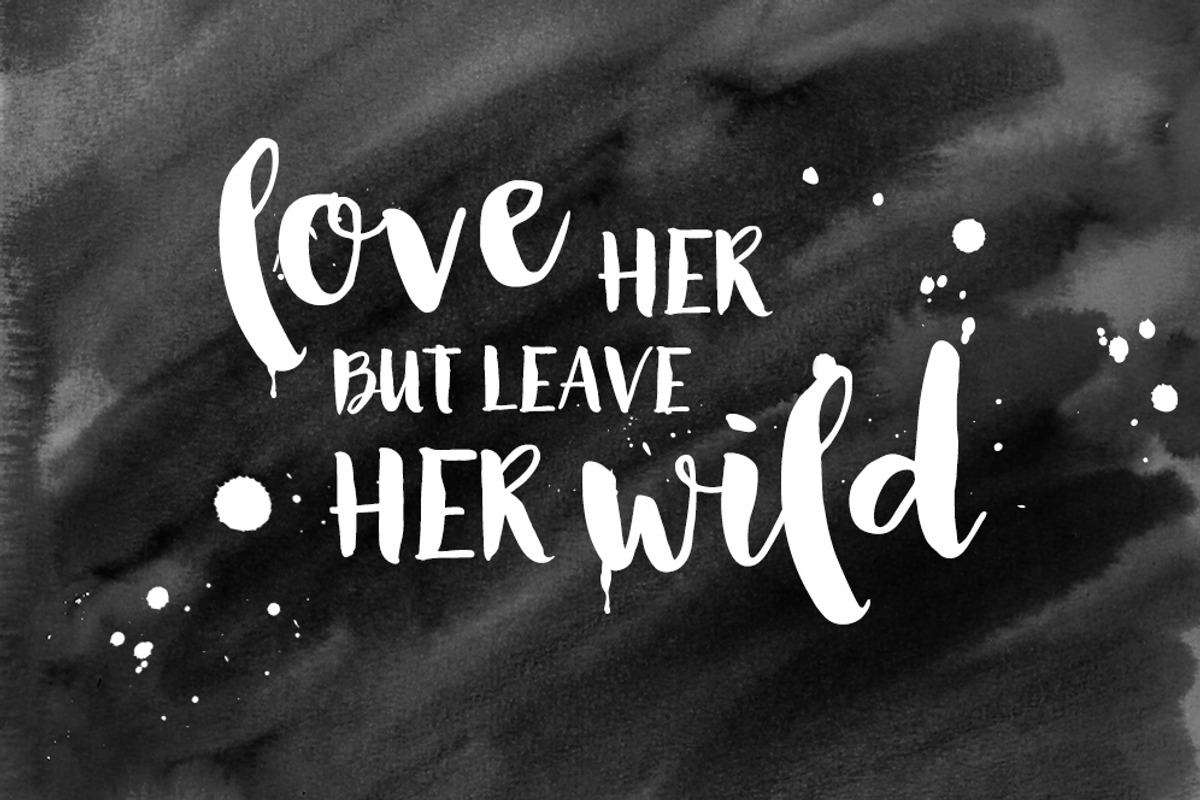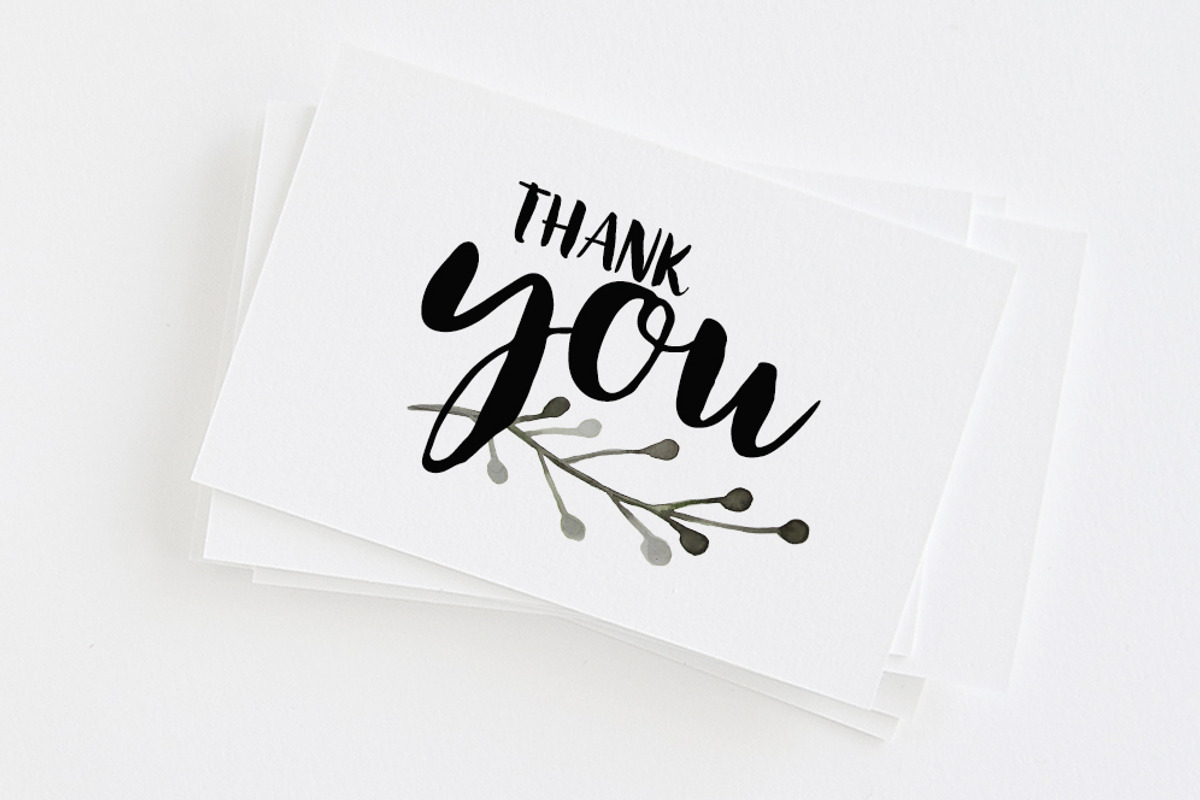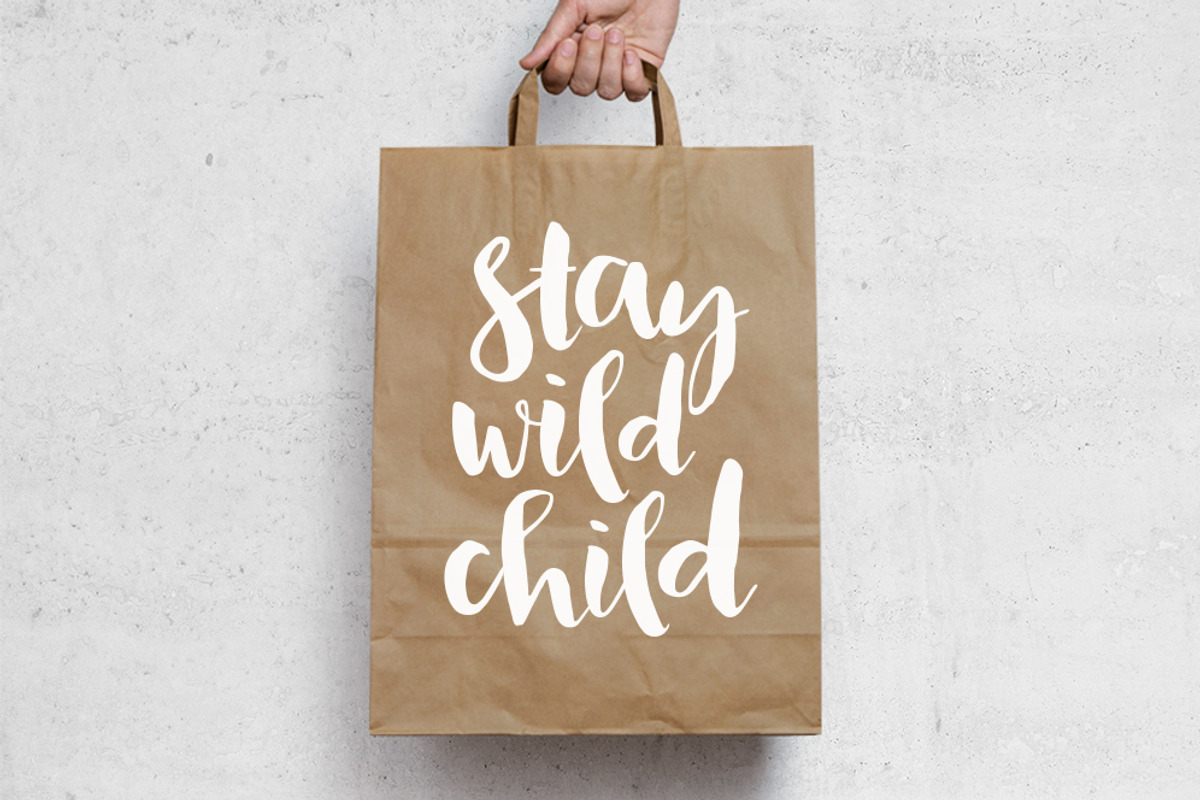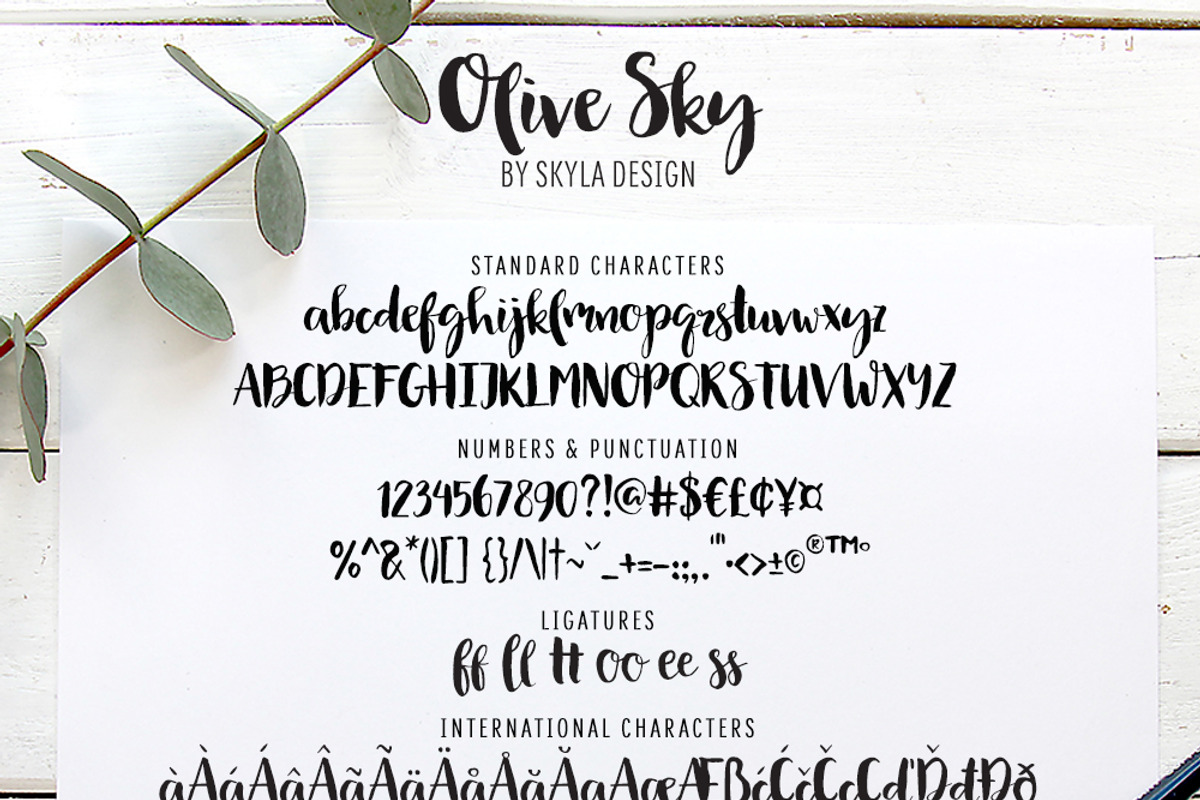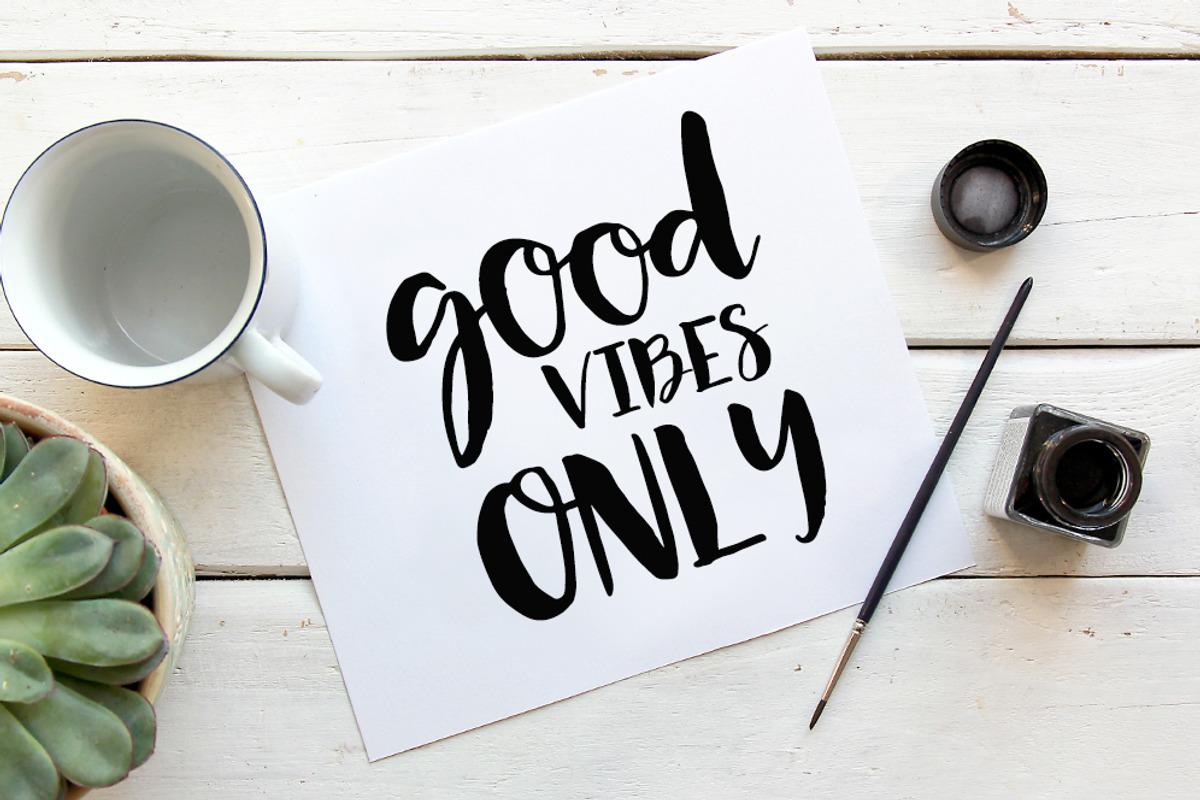
Modern brush font, Olive Sky
Modern brush font, Olive Sky by Angele Kamp is a font selected for branding, posters, packaging, typography.
- WHAT'S INCLUDED Olive Sky contains standard characters, lowercase, uppercase, numbers, punctuation, ligatures and international characters.
Modern brush font, Olive Sky by Angele Kamp fits naturally into Branding, posters, packaging, typography.